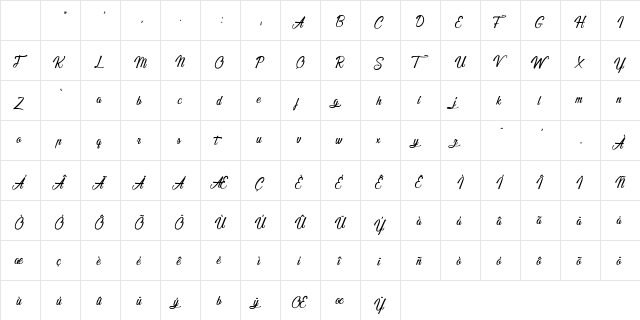
Complete Sleeping in Castleland Regular glyph index. Displaying only characters natively supported by Sleeping in Castleland Regular font.
Sleeping in Castleland is a composed and adaptable typeface that performs quietly and consistently across a wide range of design contexts.